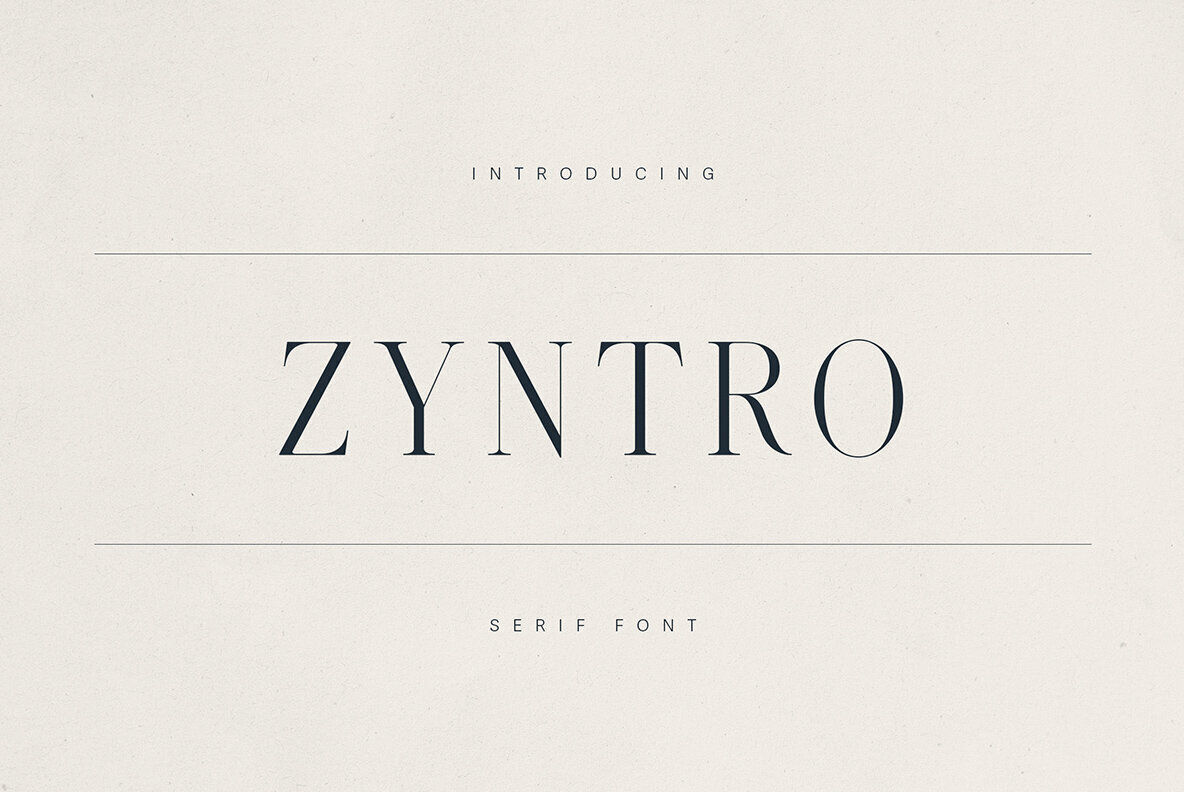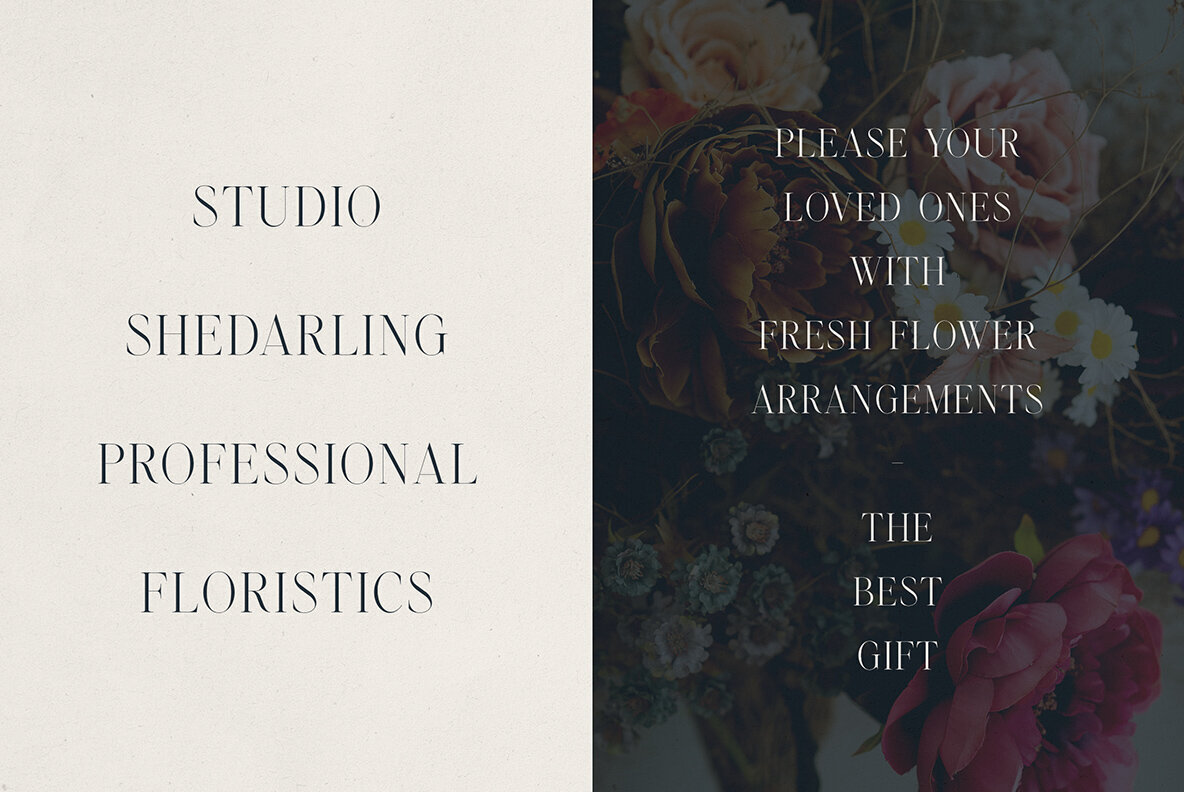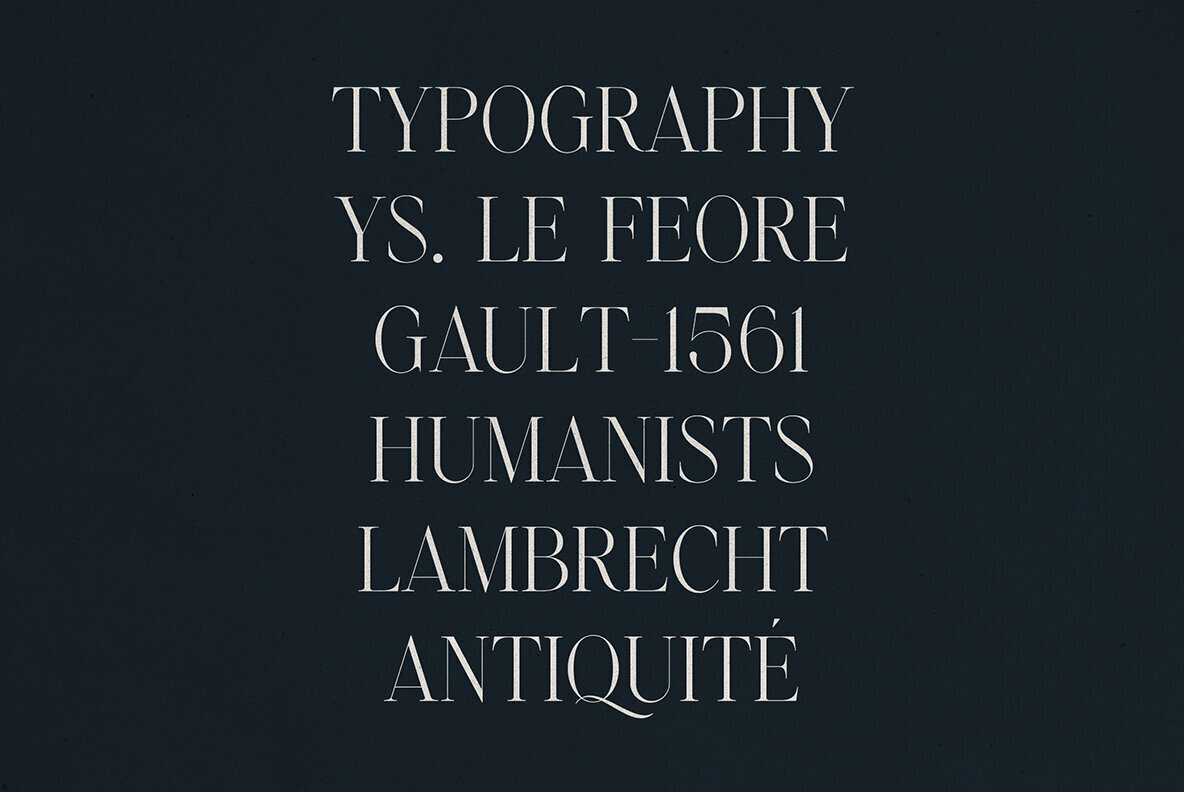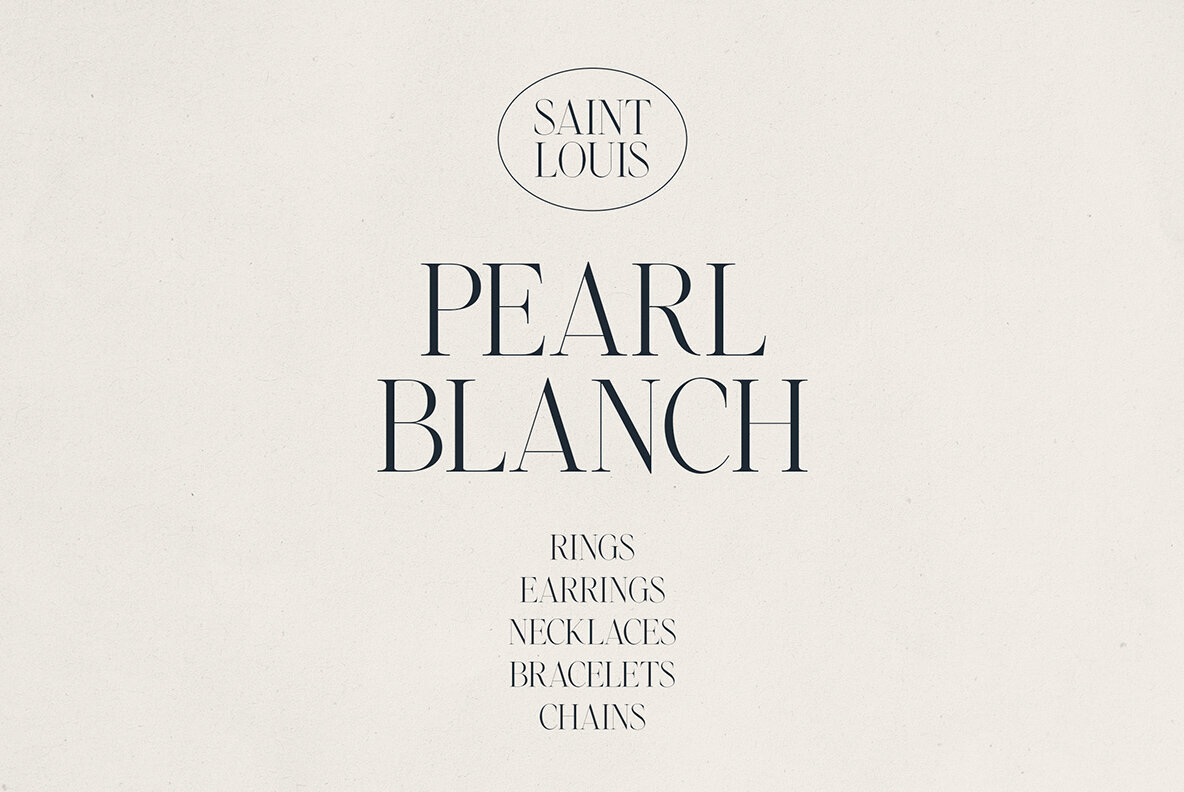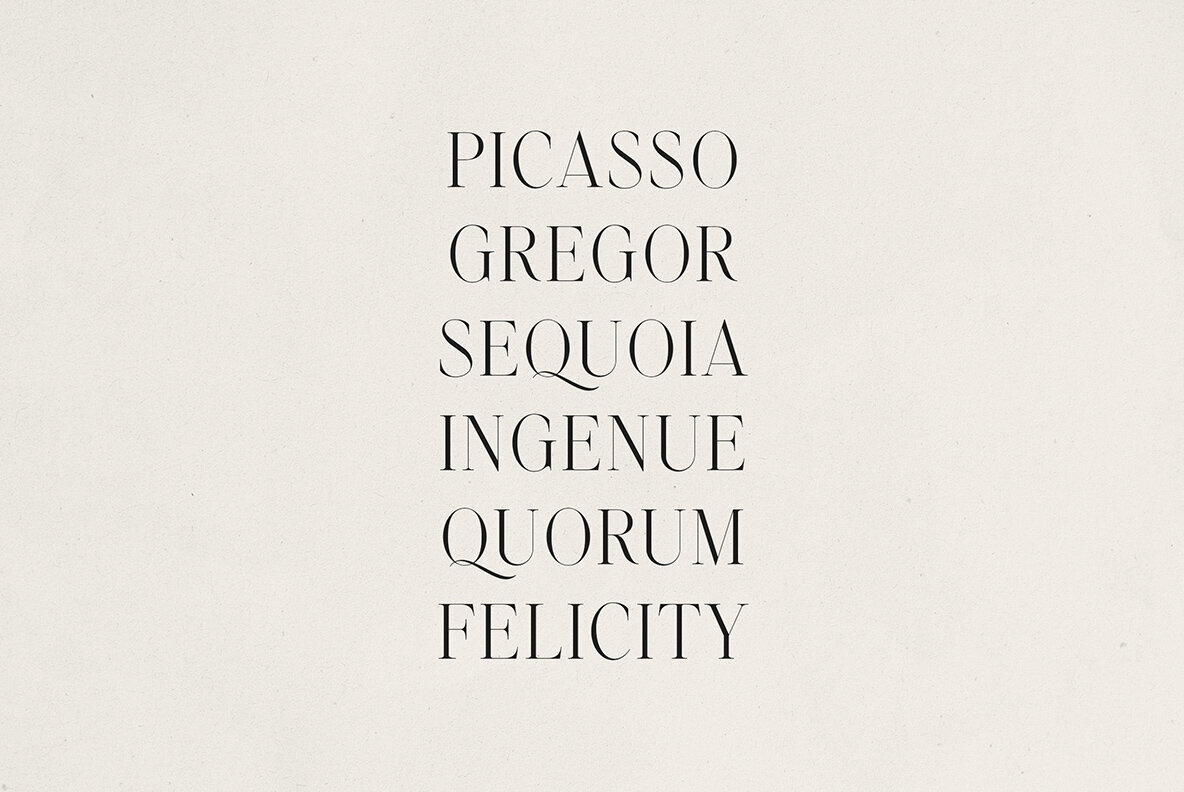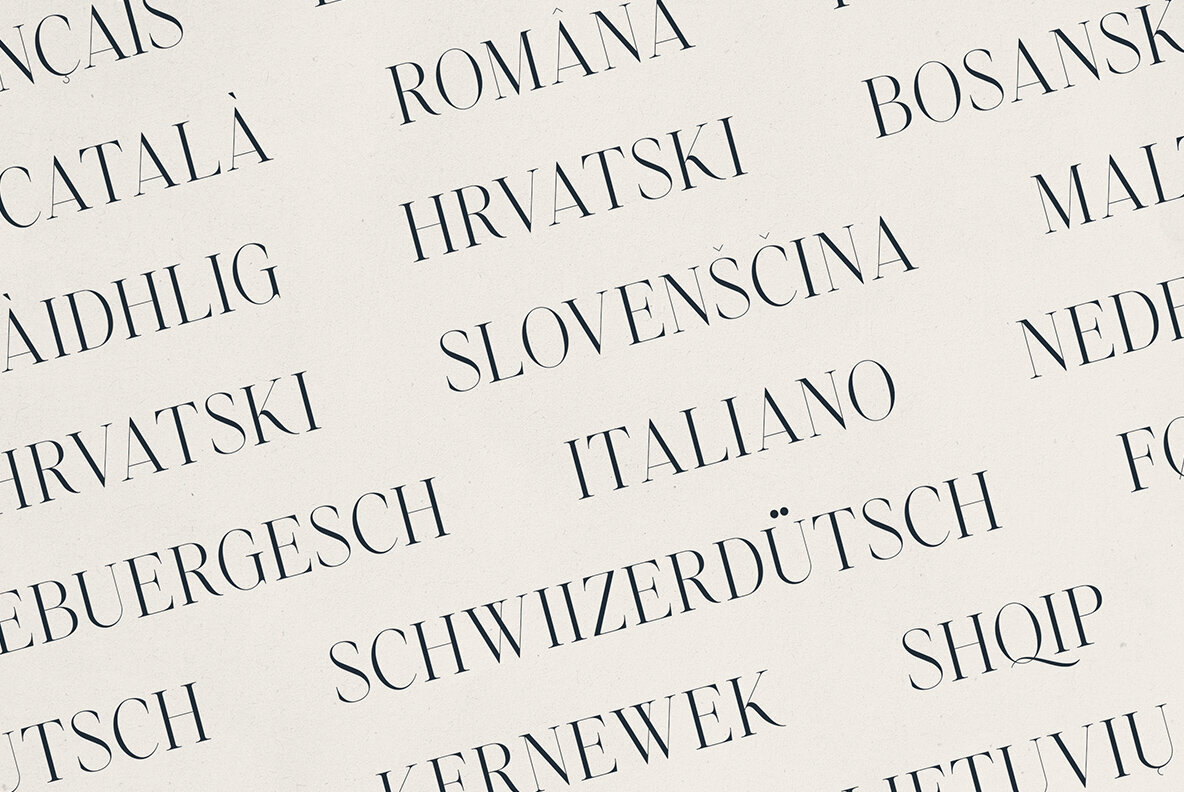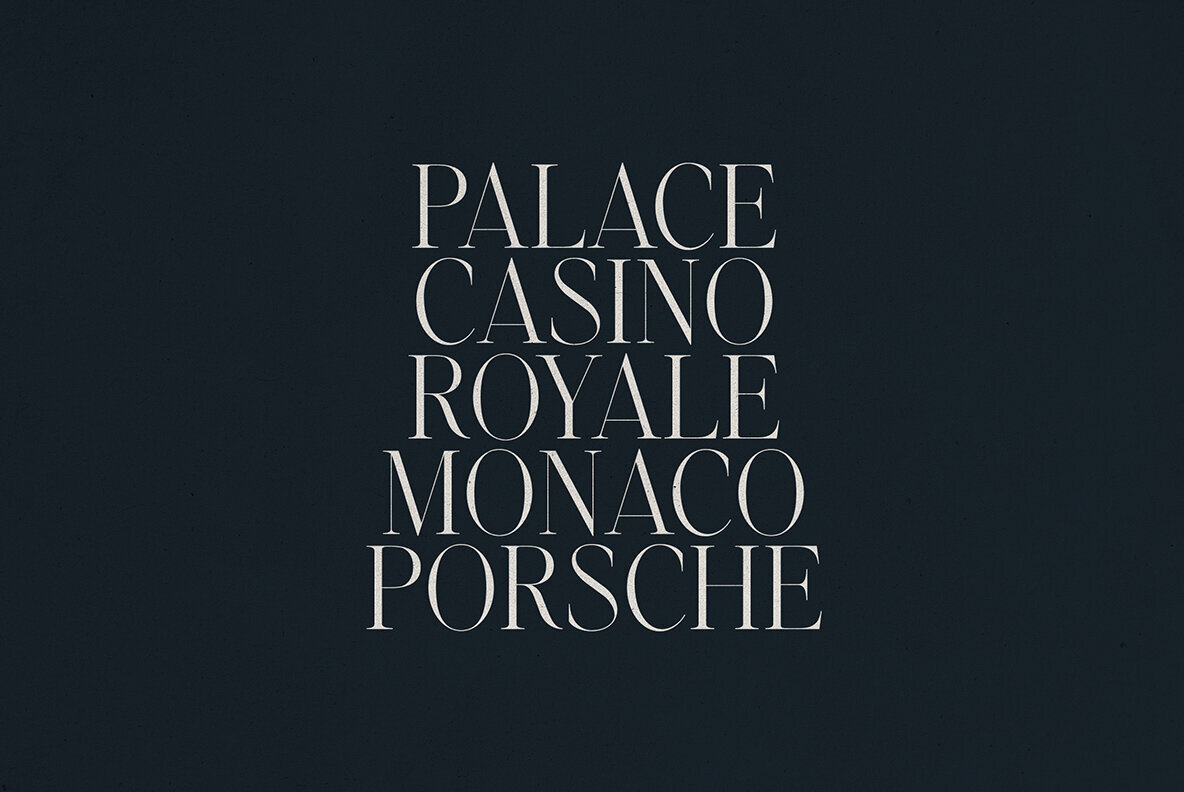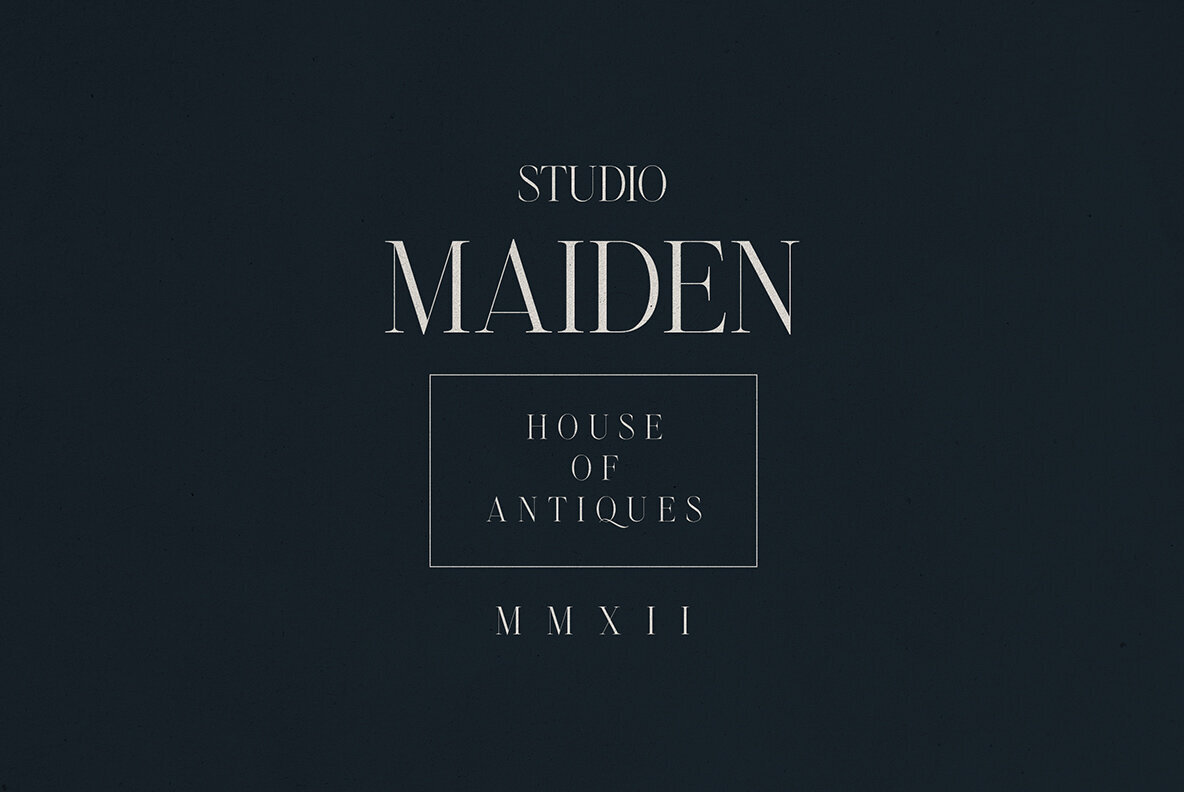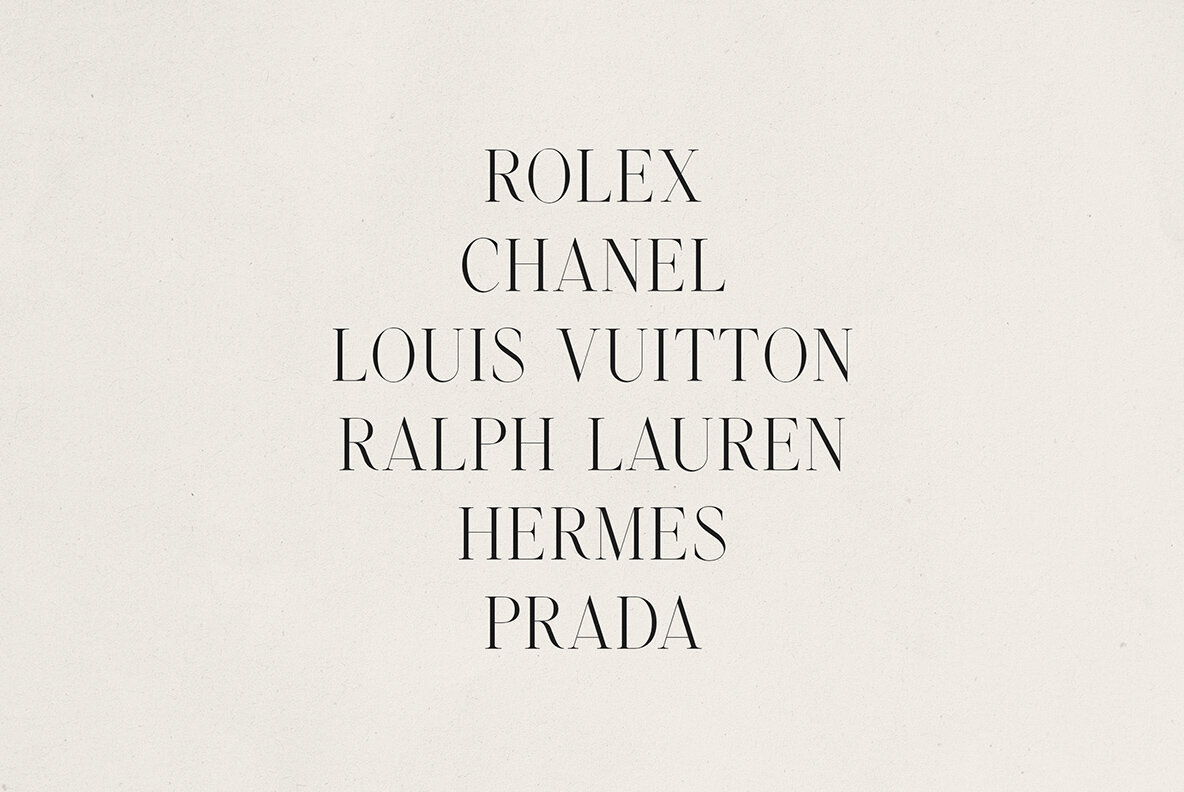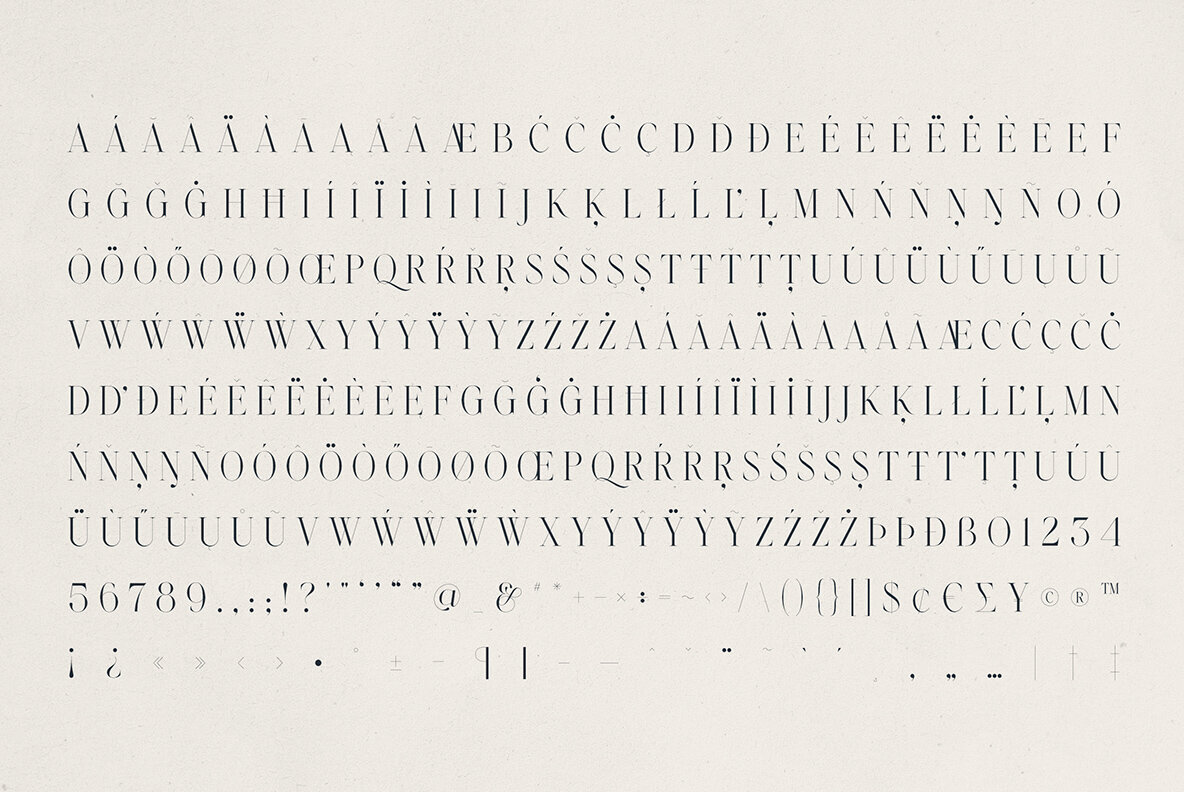
Zyntro Font
Zyntro Regular
Zyntro is a refined serif font tailored for premium branding, editorial design, and sophisticated packaging. Featuring high-contrast strokes, delicate serifs, and a Roman-inspired structure, Zyntro embodies modern luxury and classic elegance. This versatile typeface is ideal for fashion labels, upscale product packaging, magazines, and boutique logos, promising a memorable impact on your audience. Make a statement with Zyntro, where classic elegance meets modern design.Zyntro: Elegant High-Contrast Serif Font for Timeless Branding